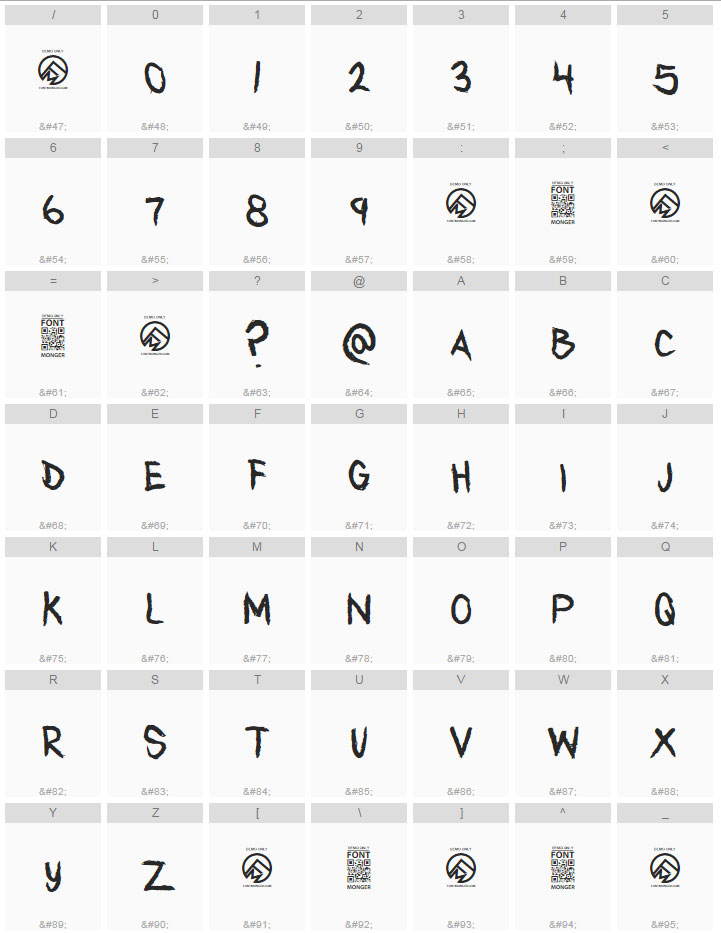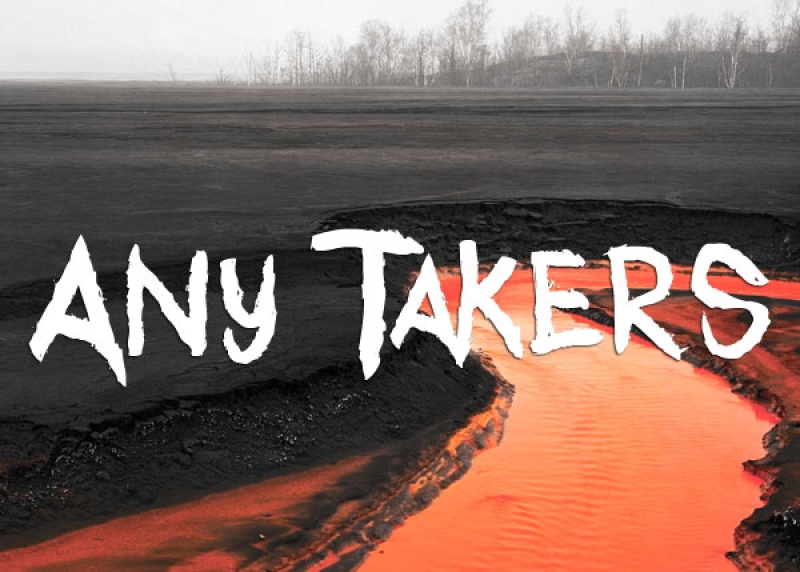
Any takers is a handwritten horror script font created by Chris Vile. It includes numbers and limited punctuation. This font is for demo only, for usage, you must purchase a font usage license. Thank you and enjoy!